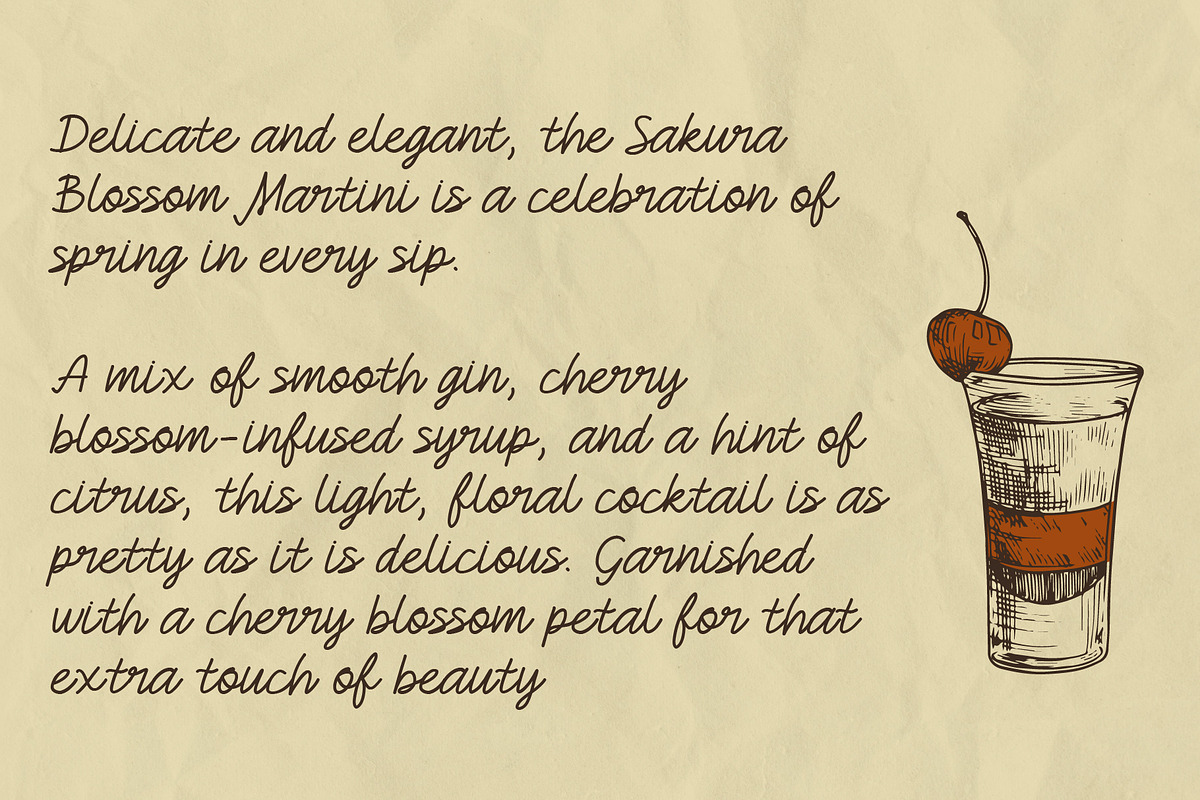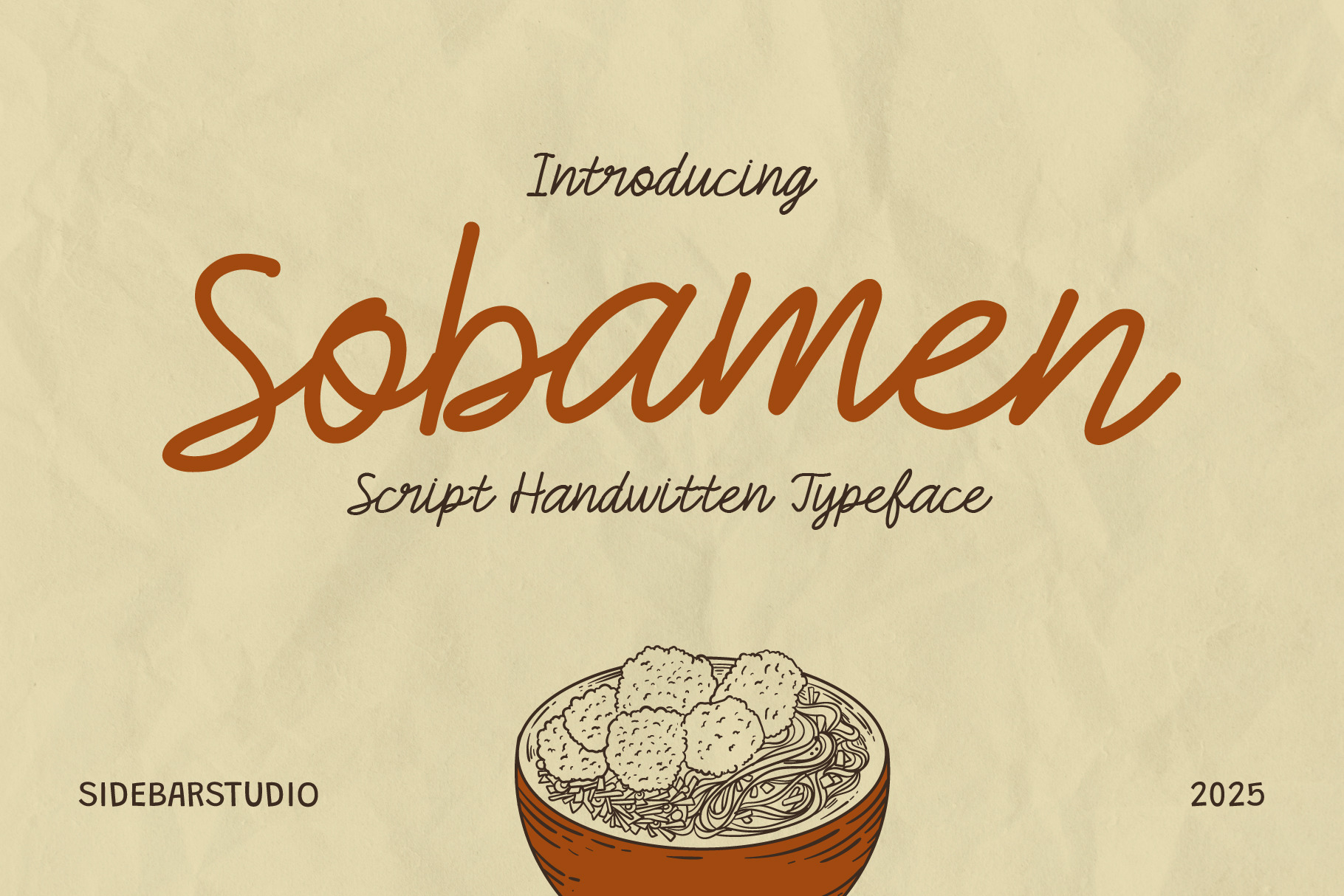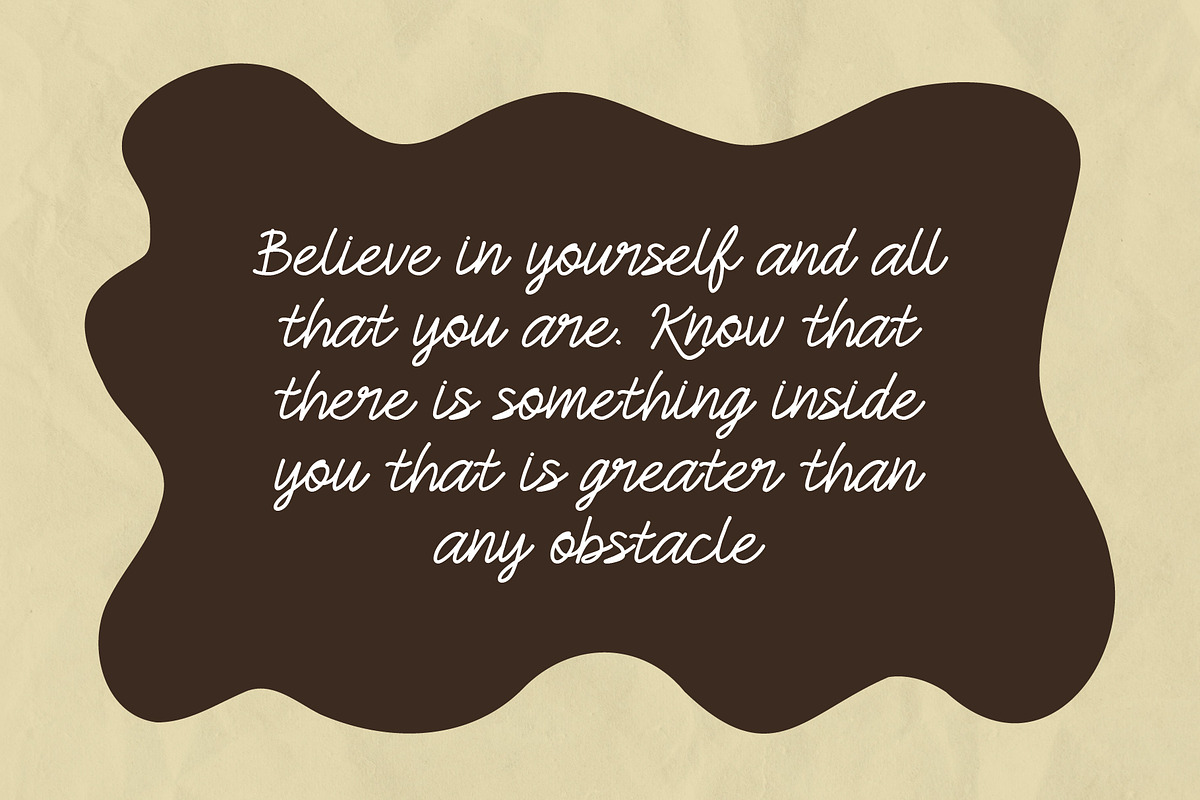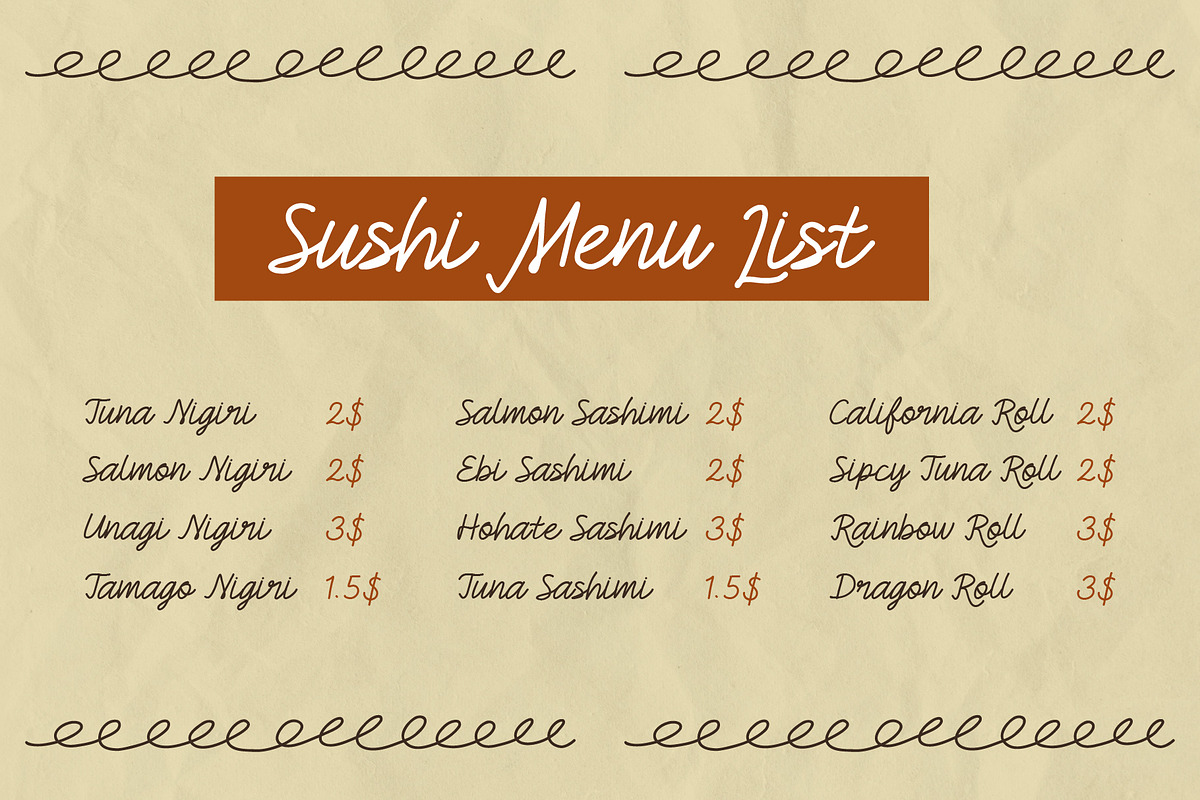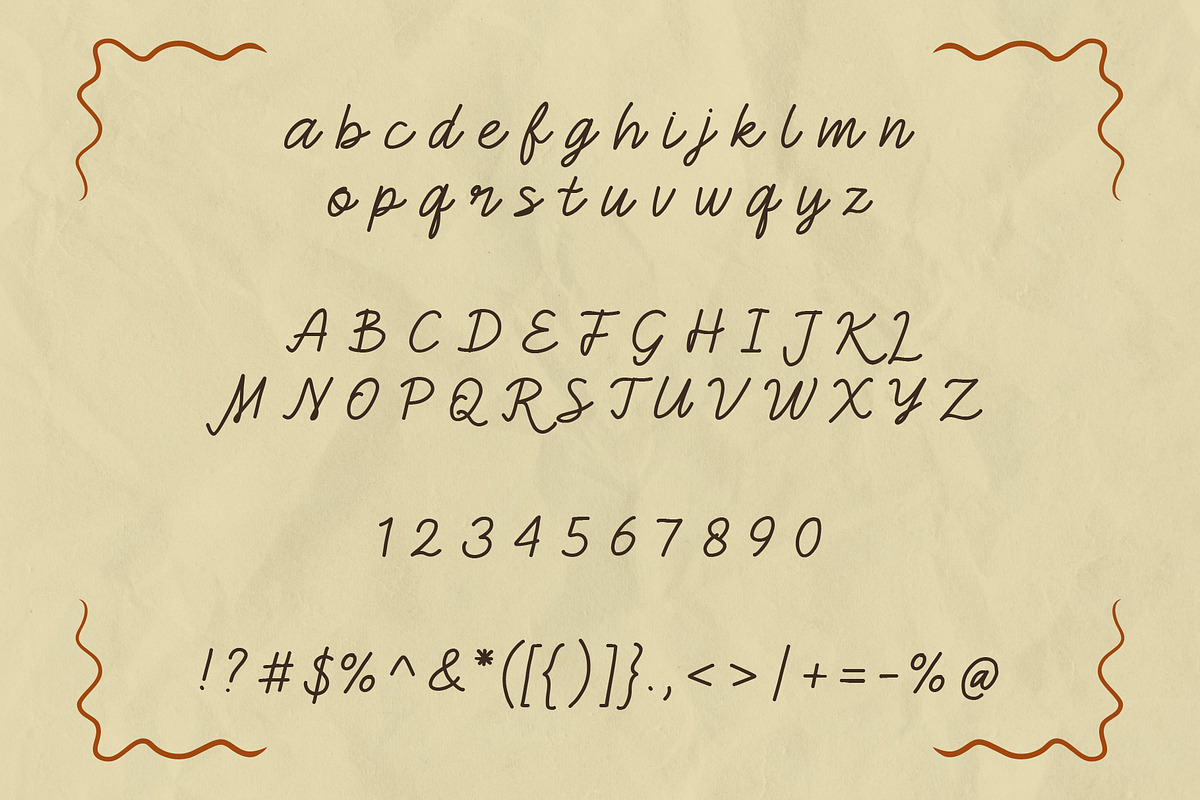
Sobamen - A Unique Handwritten Font
Introducing Sobamen, a one-of-a-kind handwritten font that brings charm and personality to your designs. Perfectly imperfect, this font adds a natural, personal touch to your projects, making them stand out in a crowd.
- Authentic Handwritten Style: Crafted with care, Sobamen captures the organic flow of handwriting, giving your designs a warm and inviting feel.
- Versatile Applications: Ideal for logos, social media posts, invitations, branding, packaging, and more. Whether you’re working on a playful project or something more elegant, Sobamen has you covered.
- Multi-Language Support: Create in multiple languages with ease, as Sobamen includes characters for a variety of languages.
Why Choose Sobamen? If you’re looking for a font that’s unique, relatable, and full of character, Sobamen is the perfect choice. Its handwritten charm will help your designs connect with your audience on a personal level.
- Full alphabet, numerals, punctuation, and special characters
- Multi-language support